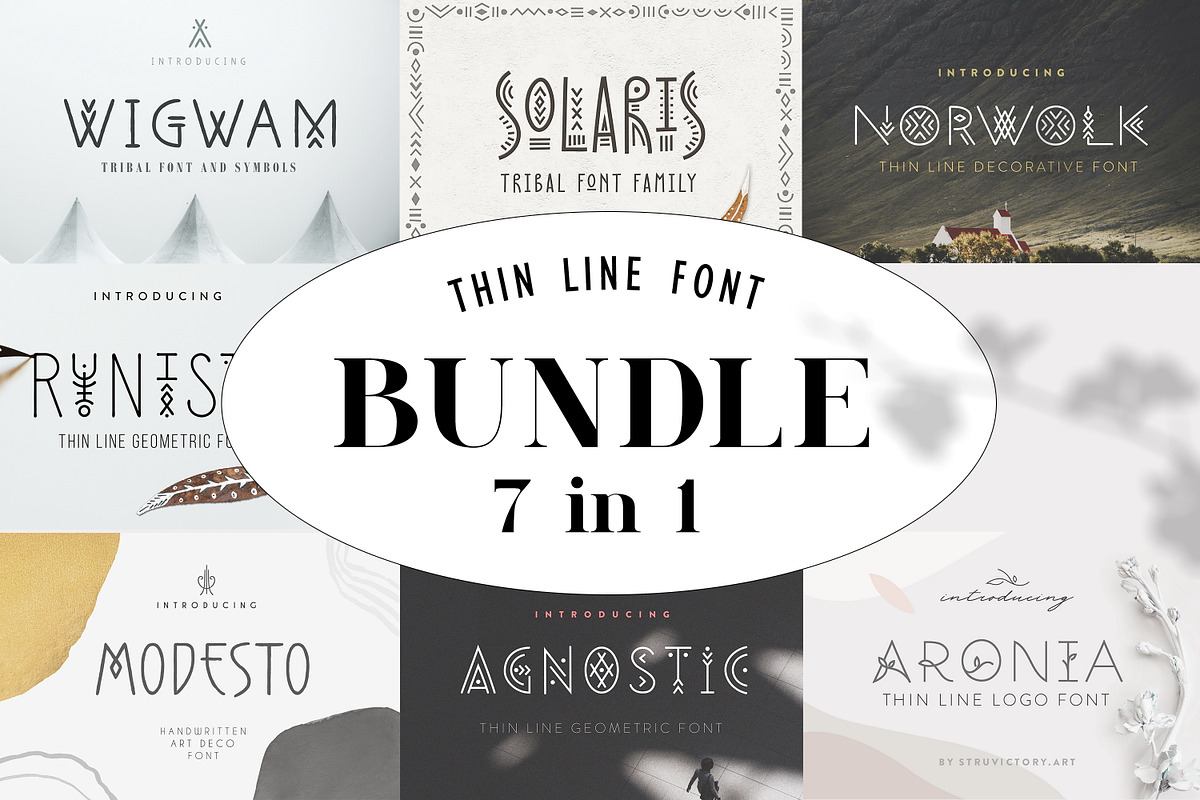
Thin Line Font Bundle: 7 in 1 Free Download
Versatile, sleek, and modern, Thin Line Font Bundle: 7 in 1 Free Download is a comprehensive collection of seven fonts, each designed with clean, minimal lines that are perfect for a variety of design projects. From branding and logos to editorial layouts, websites, and advertising, this bundle gives you a range of elegant and contemporary typefaces to elevate your designs.
With a mix of thin, sleek sans-serif and script styles, this bundle provides endless possibilities for creating stylish and professional typography. Whether you need subtle body text or bold headlines, these fonts work seamlessly together or on their own to give your projects a fresh, modern aesthetic.